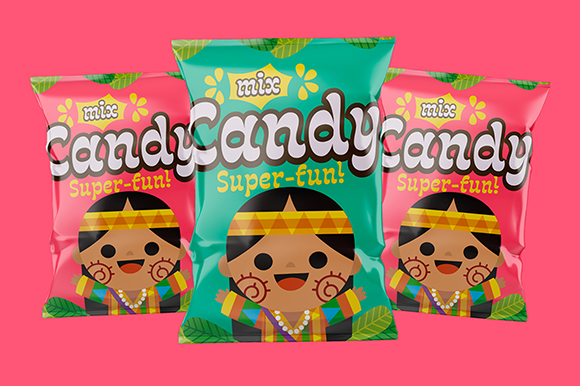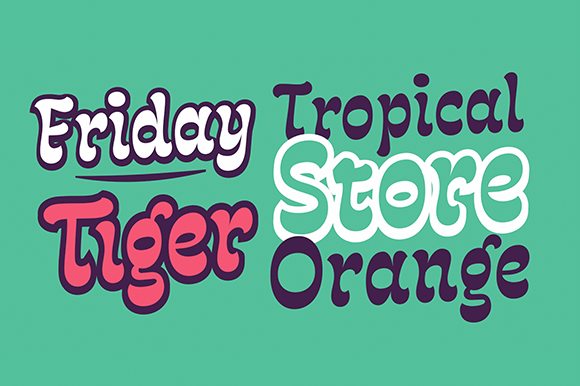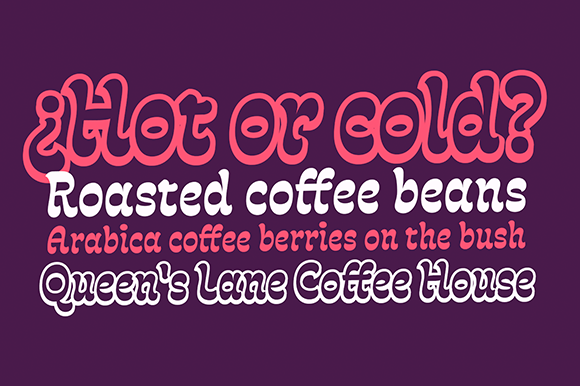
Introducing Fonty Font: Elevate Your Designs with a Wavy and Chic Display Font
In the world of design, fonts play a crucial role in conveying the message and aesthetic of a project. With thousands of fonts available, finding the perfect one that matches your creative vision can be overwhelming. However, if you’re looking for a font that adds a touch of elegance and sophistication to your designs, look no further than Fonty Font. This wavy and chic display font is a versatile addition to any font library, capable of enhancing any creation with its unique charm.
The Characteristics of Fonty Font
Fonty Font boasts a distinctive wavy design that sets it apart from more traditional fonts. Its chic and modern aesthetic makes it an ideal choice for designers looking to add a touch of sophistication to their projects. Whether you’re working on a branding campaign, a website, or a craft project, Fonty Font’s unique characteristics make it an excellent asset to have in your toolkit.
Why Choose Fonty Font?
So, what makes Fonty Font a must-have for designers and crafters? Here are just a few reasons why this font stands out:
- Versatility: Fonty Font is a display font that can be used for a wide range of projects, from headings and titles to logos and branding materials.
- Elegance: The wavy design of Fonty Font adds a touch of elegance and sophistication to any project, making it perfect for high-end brands and luxury products.
- Readability: Despite its unique design, Fonty Font remains highly readable, even at smaller sizes, making it a practical choice for body text and other applications.
- Customization: Fonty Font can be easily customized to fit your project’s specific needs, allowing you to experiment with different colors, sizes, and styles.
Using Fonty Font in Your Designs
Fonty Font is incredibly easy to use and can be incorporated into your designs in a variety of ways. Here are a few ideas to get you started:
- Headings and Titles: Use Fonty Font to create eye-catching headings and titles that draw attention to your content.
- Logos and Branding: Fonty Font’s unique design makes it an excellent choice for logos and branding materials, helping to establish a strong visual identity for your brand.
- Signage and Displays: Fonty Font’s wavy design makes it perfect for signage and displays, adding a touch of elegance and sophistication to any message.
- Craft Projects: Fonty Font can also be used in craft projects, such as scrapbooking, card making, and other paper crafts.
Tips for Getting the Most Out of Fonty Font
To get the most out of Fonty Font, here are a few tips to keep in mind:
- Experiment with Colors: Fonty Font looks great in a variety of colors, so don’t be afraid to experiment and find the perfect hue for your project.
- Play with Sizes: Fonty Font can be used at a range of sizes, from large headings to smaller body text.
- Combine with Other Fonts: Fonty Font pairs well with a variety of other fonts, so feel free to experiment with different combinations to find the perfect look for your project.
In conclusion, Fonty Font is a wavy and chic display font that is sure to elevate your designs and add a touch of elegance and sophistication. With its versatility, readability, and customization options, Fonty Font is an excellent addition to any font library. Whether you’re a designer, crafter, or DIY enthusiast, Fonty Font is a must-have font that will help you create stunning projects that stand out from the crowd.